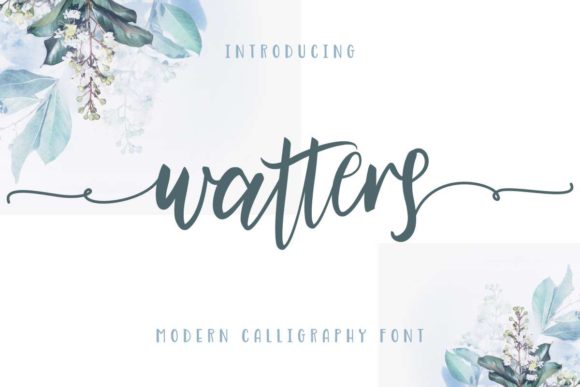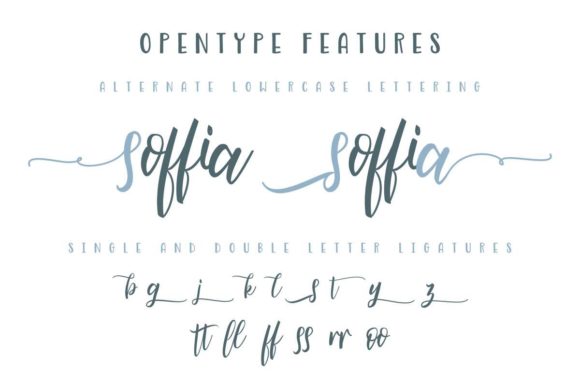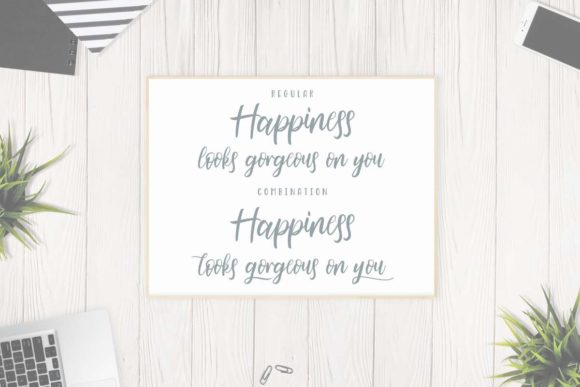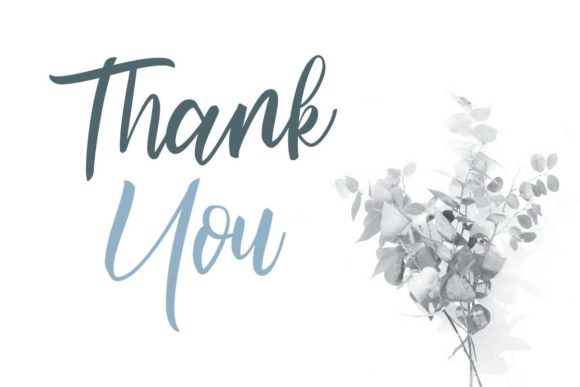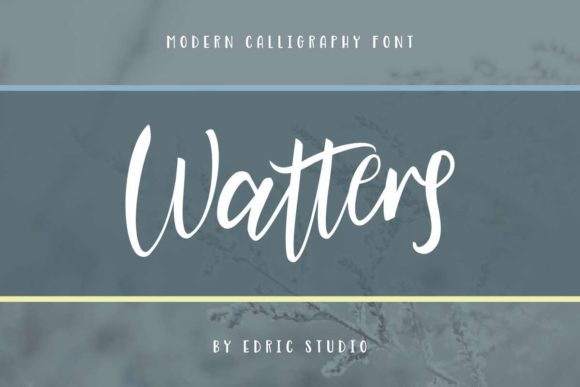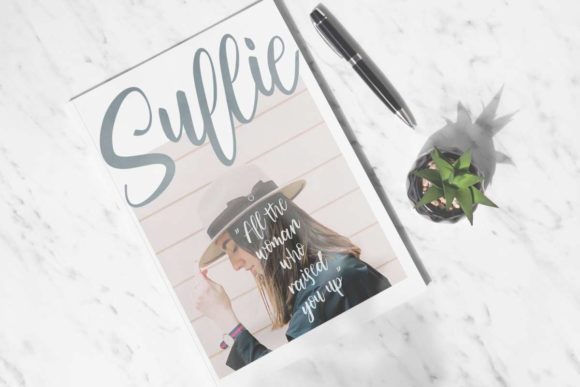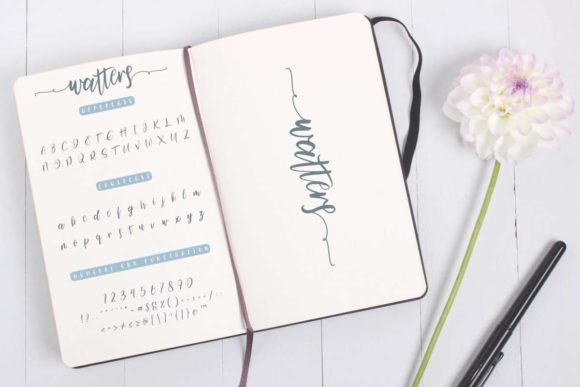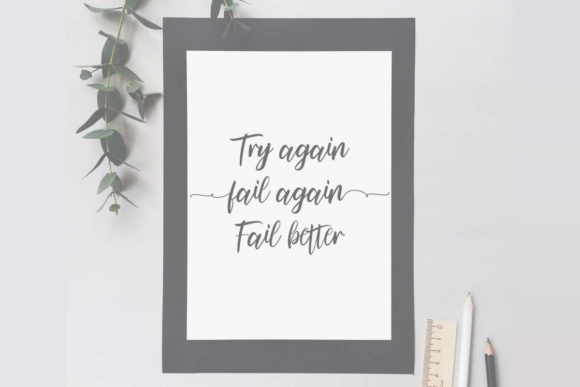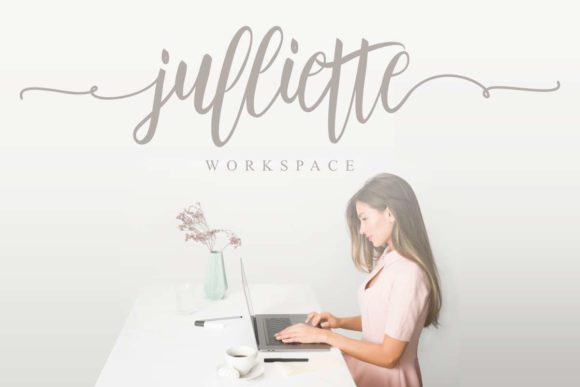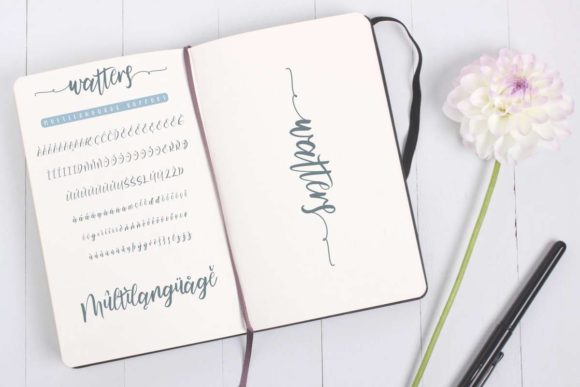
HomeScript FontsWatters Font Script Fonts Watters Font FacebookXPinterestWhatsApp Watters Font Poster 2 Watters Font Poster 3 Watters Font Poster 4 Watters Font Poster 5 Watters Font Poster 6 Watters Font Poster 7 Watters Font Poster 8 Watters Font Poster 9 Watters Font Poster 10 Watters Font Poster 11 Watters Font Poster 12 About Watters Font Watters is a gorgeous script with a wholesome feel. Use it to add an authentic touch to your next design project! DOWNLOAD NOW People also explored HardTimes Roman Sareeka Font Umberland Slab Font Aniston Font Marrant Font Janakie Font Centuries Font Quenione Unico Font Black Crown Font 324 0 TagsWatters Font Previous articleArsya Edelwiess Duo FontNext articleGhivton Font LEAVE A REPLY Cancel reply Comment: Please enter your comment! Name:* Please enter your name here Email:* You have entered an incorrect email address! Please enter your email address here Website: Save my name, email, and website in this browser for the next time I comment. Personal Use Free Namskow Personal Use Free Read more about this font Arc Personal Use Free Read more about this font 08 Underground Personal Use Free Read more about this font Salmoni Personal Use Free Read more about this font BLOG The 10 Best Handwriting Fonts to Add Personality to Your Designs 10 of the Best Handwriting Fonts for Adding Personality to Your Designs There will undoubtedly be no other better choice than handwriting fonts to give... Top 7 Google Fonts Alternatives for Faster and Privacy-Friendly Web Design (2025) Best Fonts for YouTube Videos: Make Your Thumbnails Stand Out Top 10 Handwritten Fonts That Elevate Your Designs